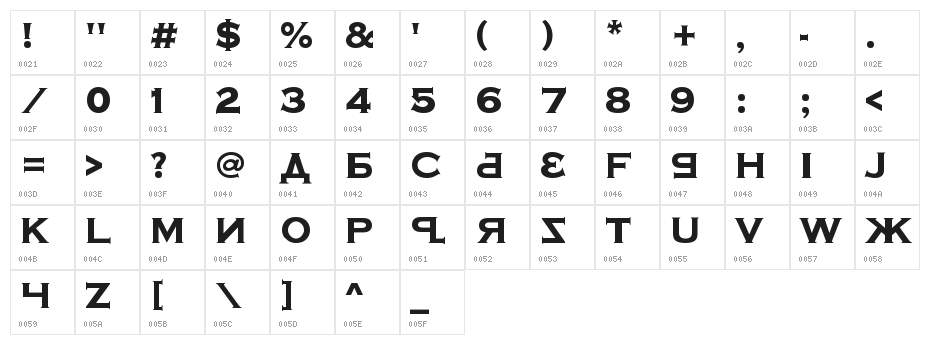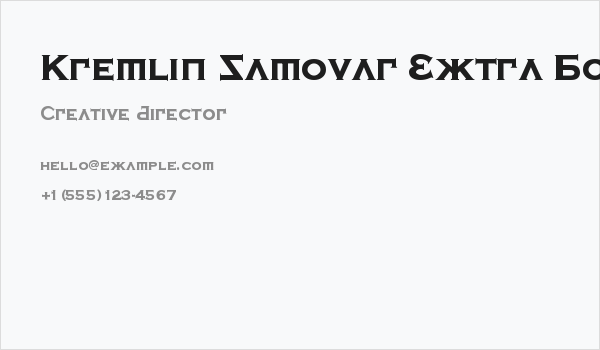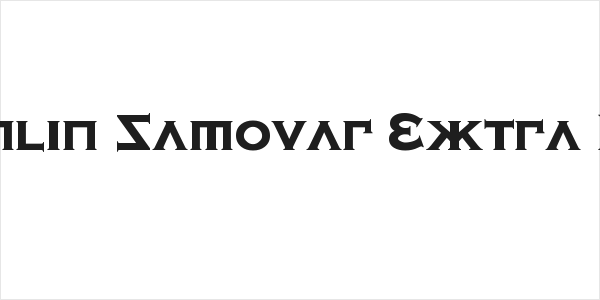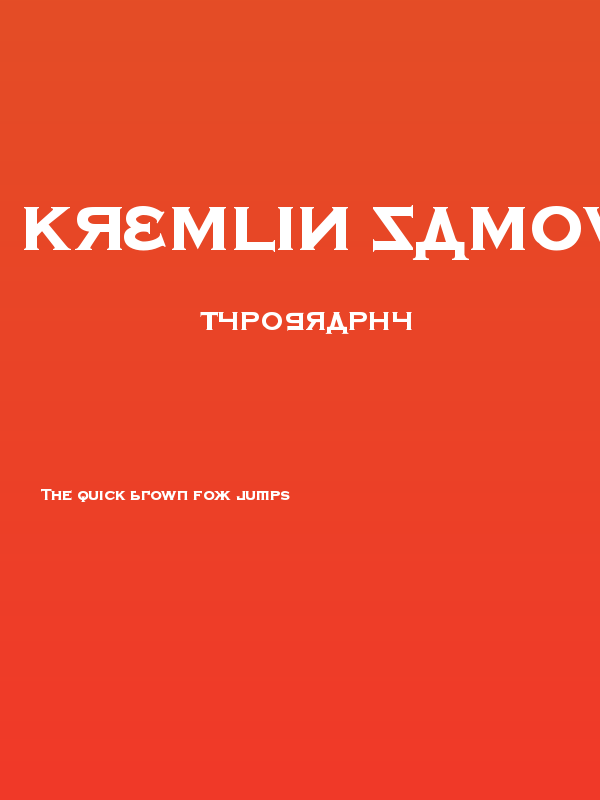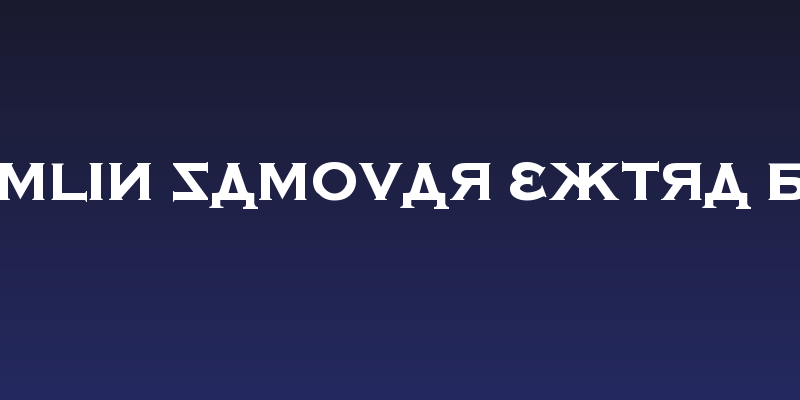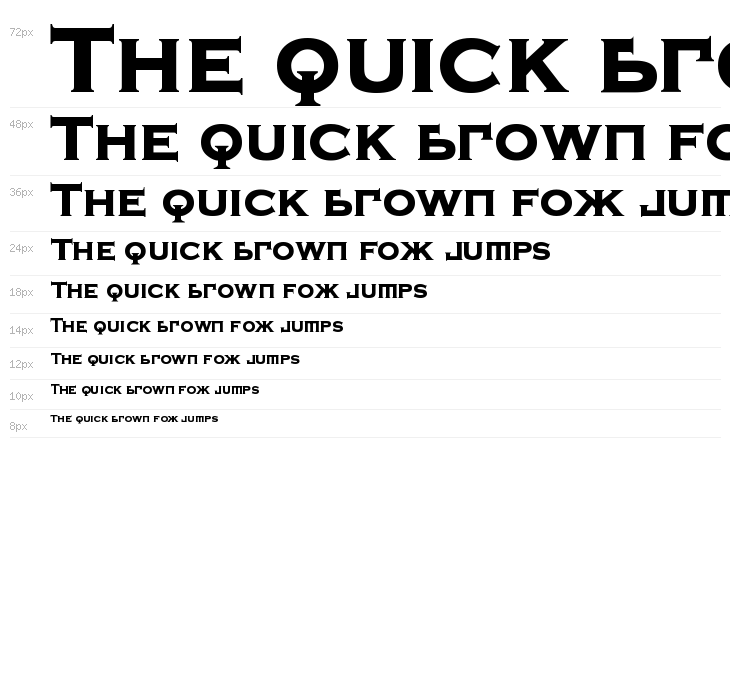
Kremlin Samovar Extra Bold Font
Kremlin Samovar Extra Bold Description
This font features a bold and striking design with a strong presence, characterized by its thick strokes and angular serifs. The letters are crafted with a sense of authority and power, making it ideal for impactful headlines and attention-grabbing displays. The uppercase and lowercase letters maintain a consistent weight, providing a cohesive look across all characters. The numerals are equally bold, ensuring they stand out in any context. Special characters are designed with the same boldness, ensuring uniformity throughout the font.
| Proposed Projects | Ideal for use in headlines, posters, branding, and any project requiring a strong visual impact. |